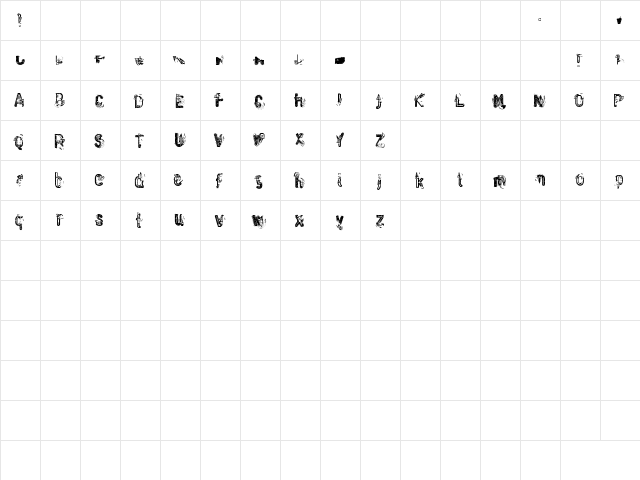
Waste of Paint Regular
Design Context for Waste of Paint Typeface
Waste of Paint is a composed and adaptable typeface that performs quietly and consistently across a wide range of design contexts.